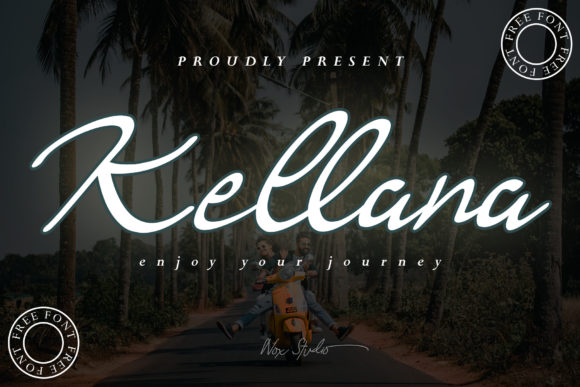
About Kellana Font
Kellana is a dazzling and timeless handwritten font. It is the best choice for creating eye catching logos, branding and quotes. This font is PUA encoded which means you can access all of the glyphs with ease!